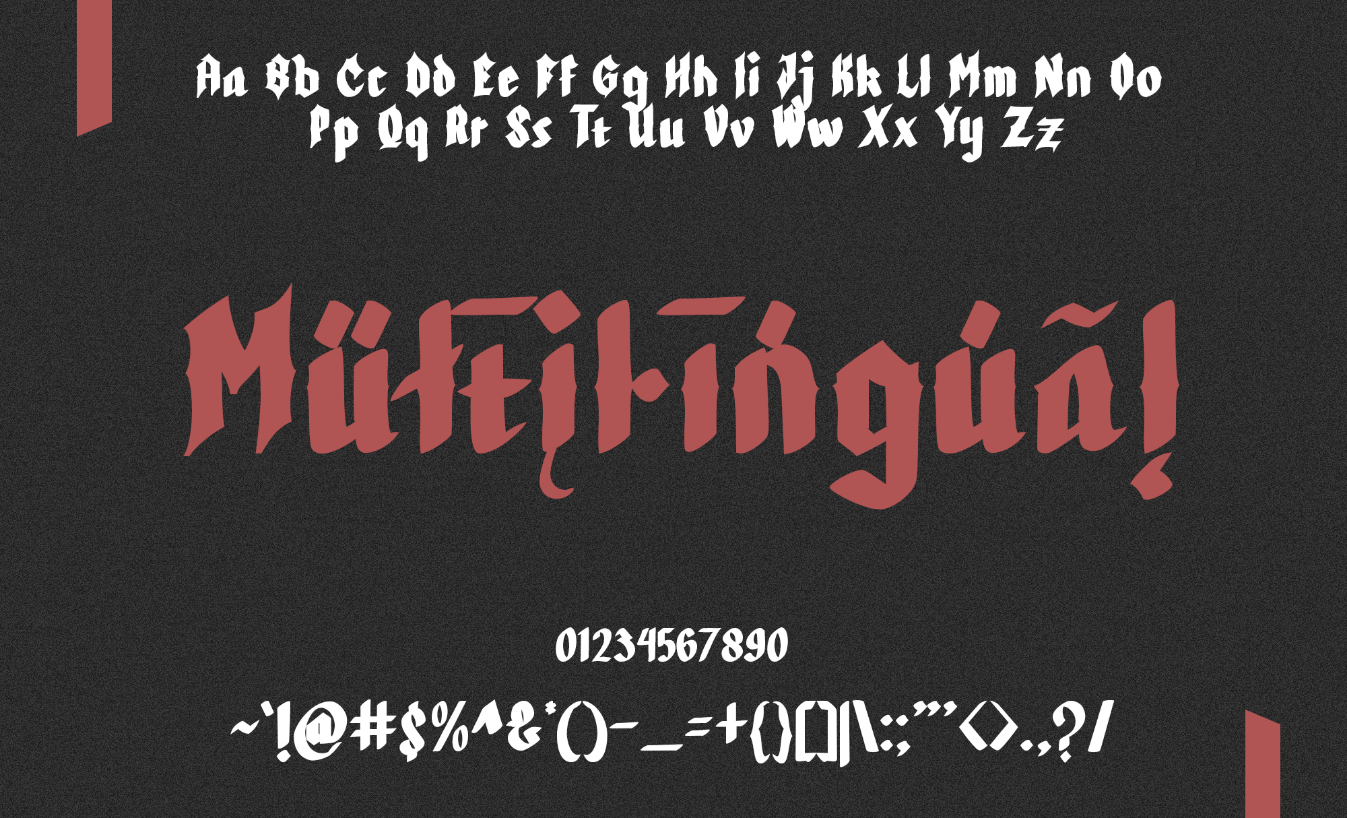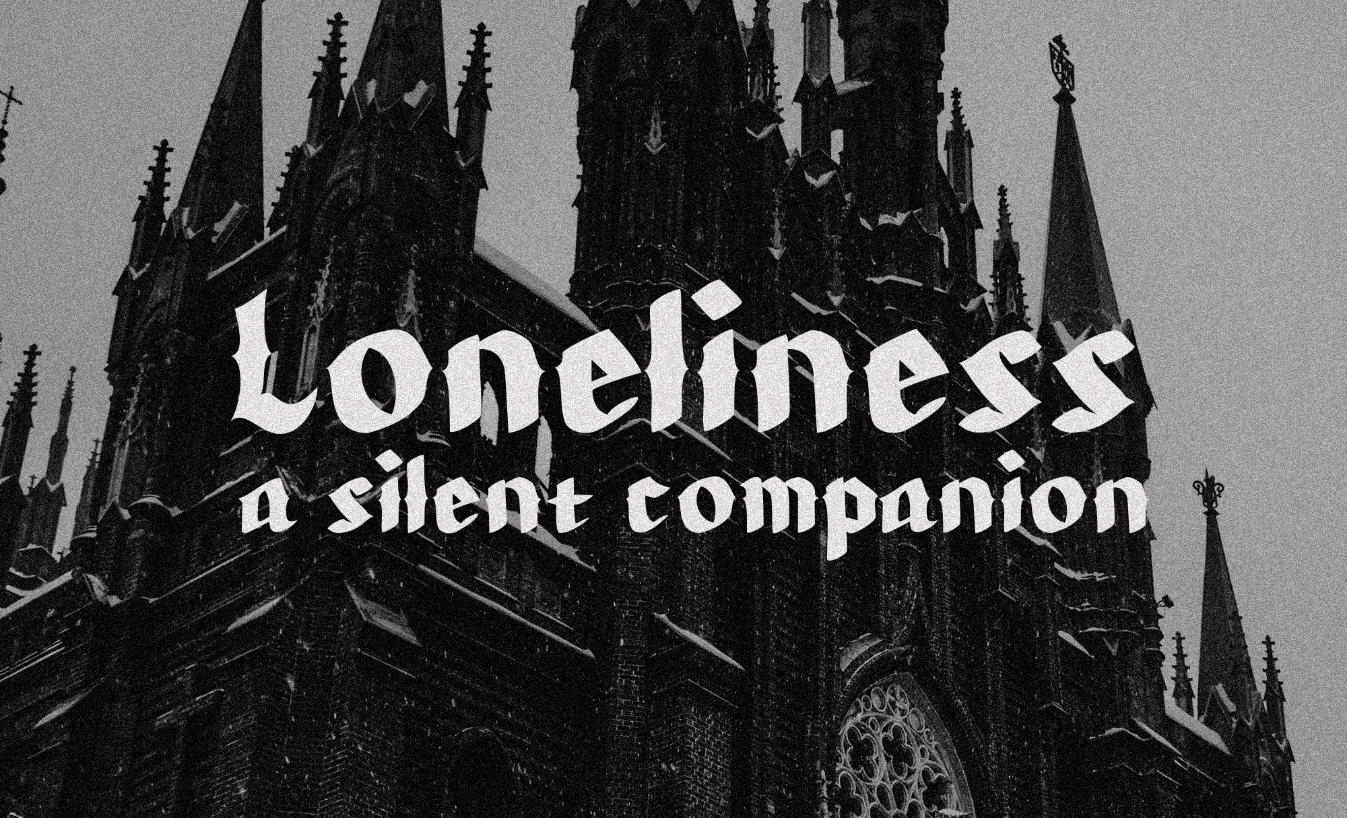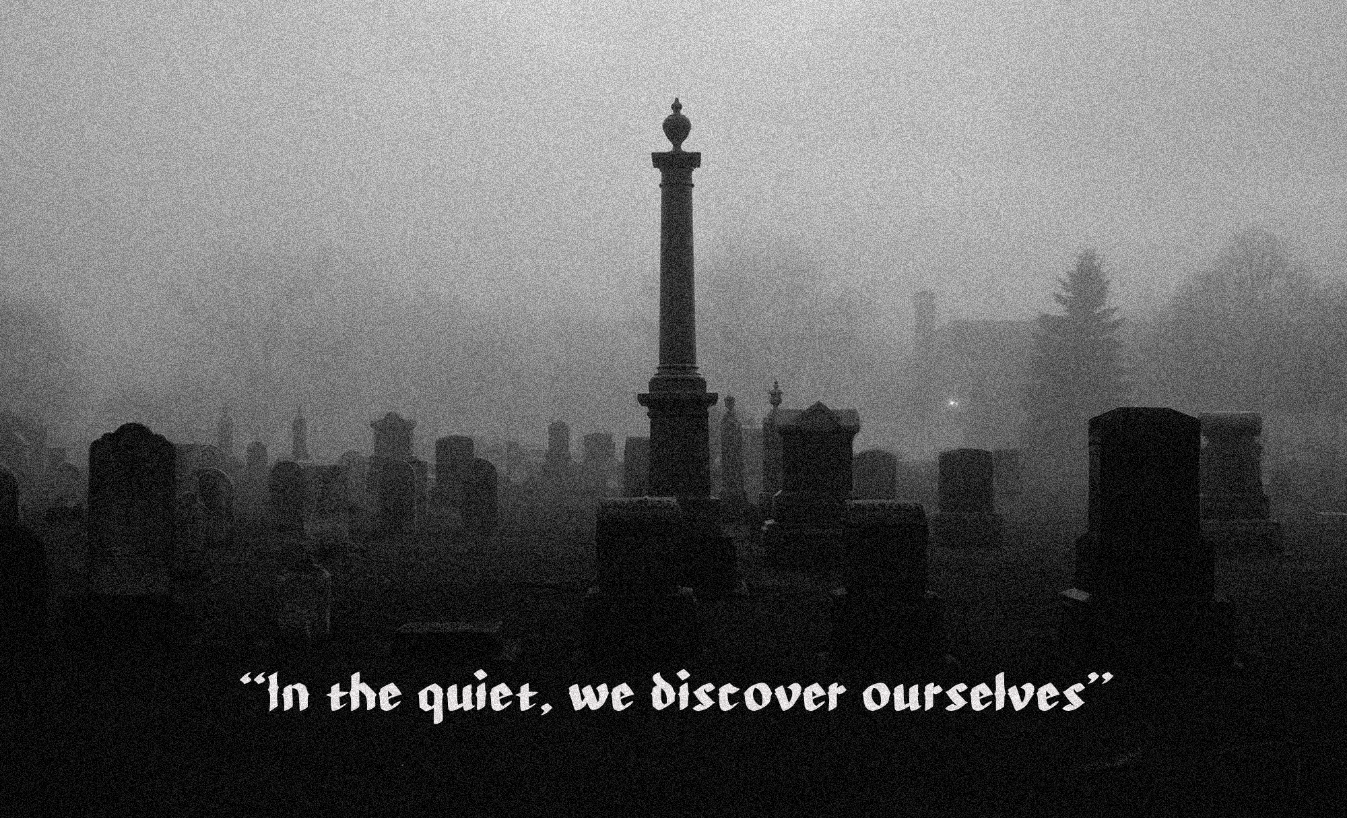
About Cunigund Font
Introducing Cunigund – a font that captures the vintage vibe with a modern twist. Its Gothic Blackletter style is the epitome of elegance, perfect for those who crave simplicity in their designs. With seven unique styles, this font has the versatility to fit any creative project. Whether you’re designing a poster, movie title, header, t-shirt, or art craft, Cunigund’s plain and clean aesthetic will make your work stand out. Let Cunigund elevate your designs to new heights and leave a lasting impression on your audience.